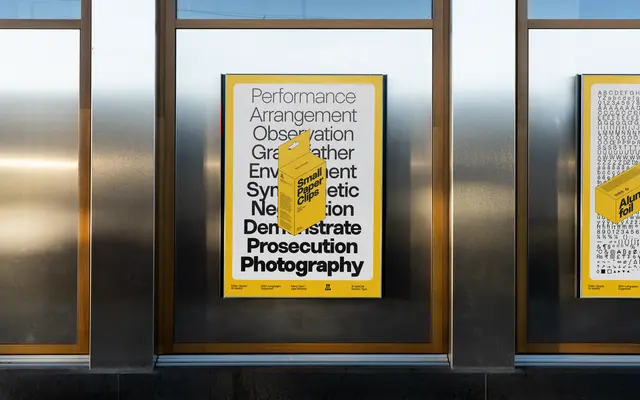
MT Everyday Sans
Modern Type · Dalton Bruyns · 2023
A ten-weight grotesque by Dalton Bruyns built for general-purpose use, moving from neutral lighter weights to a more characterful heaviness at the top of the range.
Designed by Dalton Bruyns and released in 2023, the family spans Extra Light through Heavy across ten upright weights with no italic cut. Straight terminals and low contrast keep the lighter weights neutral and readable, while the heavier-than-normal axis lends the bolder cuts a playful quality without sacrificing coherence across the range. Broad Latin character coverage with Cyrillic and Greek support, oldstyle figures and discretionary ligatures round out the feature set.
A low-contrast grotesque with straight terminals and a heavier-than-normal axis, placing it firmly in the contemporary grotesque tradition with an upright, neutral construction.